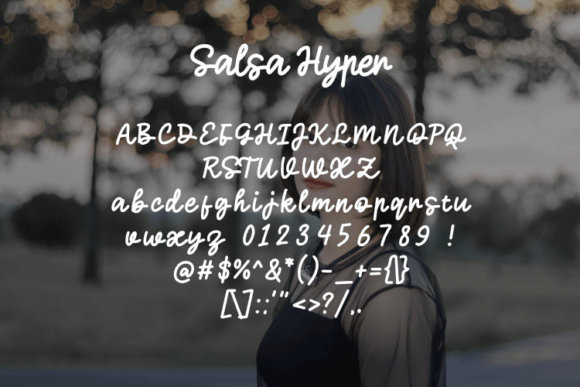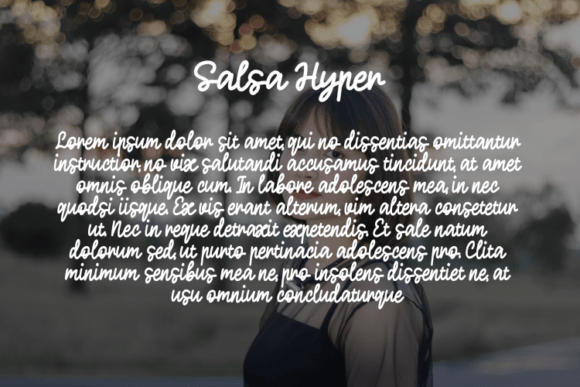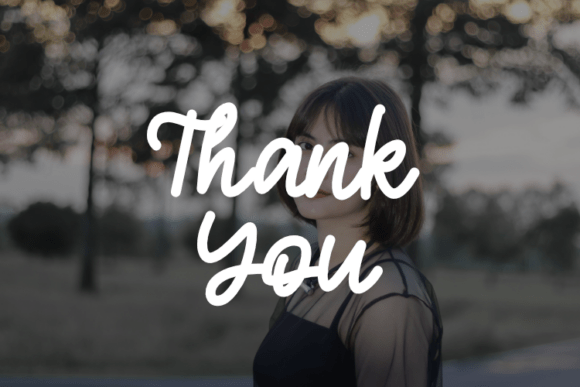
Introduction to Salsa Hyper Font Font
Fonts play a crucial role in design, and the Salsa Hyper Font font is a typeface that brings both character and versatility to any project. Whether you’re working on a branding project, a website, or a print design, the Salsa Hyper Font font offers a unique style that can elevate your work.
Immerse yourself in the βSalsa Hyperβ font experience, specifically ideated for the world of fashion and merchandise designing.
Key Features of Salsa Hyper Font Font
Why Choose Salsa Hyper Font Font?
The Salsa Hyper Font font is more than just a typeface β it’s a design tool that helps you communicate your message with style and clarity. Its unique character set and versatile design make it suitable for a wide range of applications, from elegant invitations to bold headlines.
With its carefully crafted letterforms and balanced proportions, the Salsa Hyper Font font ensures readability and visual appeal across all mediums.
What makes Salsa Hyper Font font special?
The Salsa Hyper Font font stands out with its unique design, exceptional readability, and versatility across various design applications.